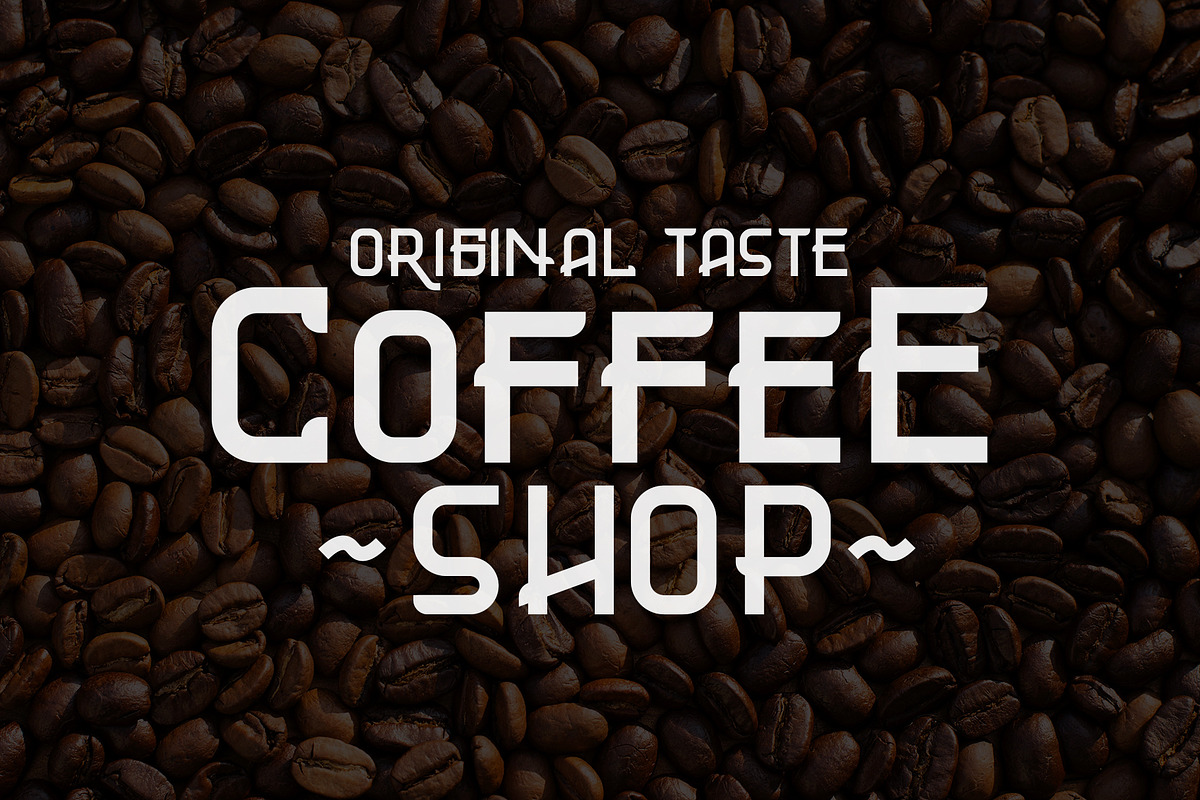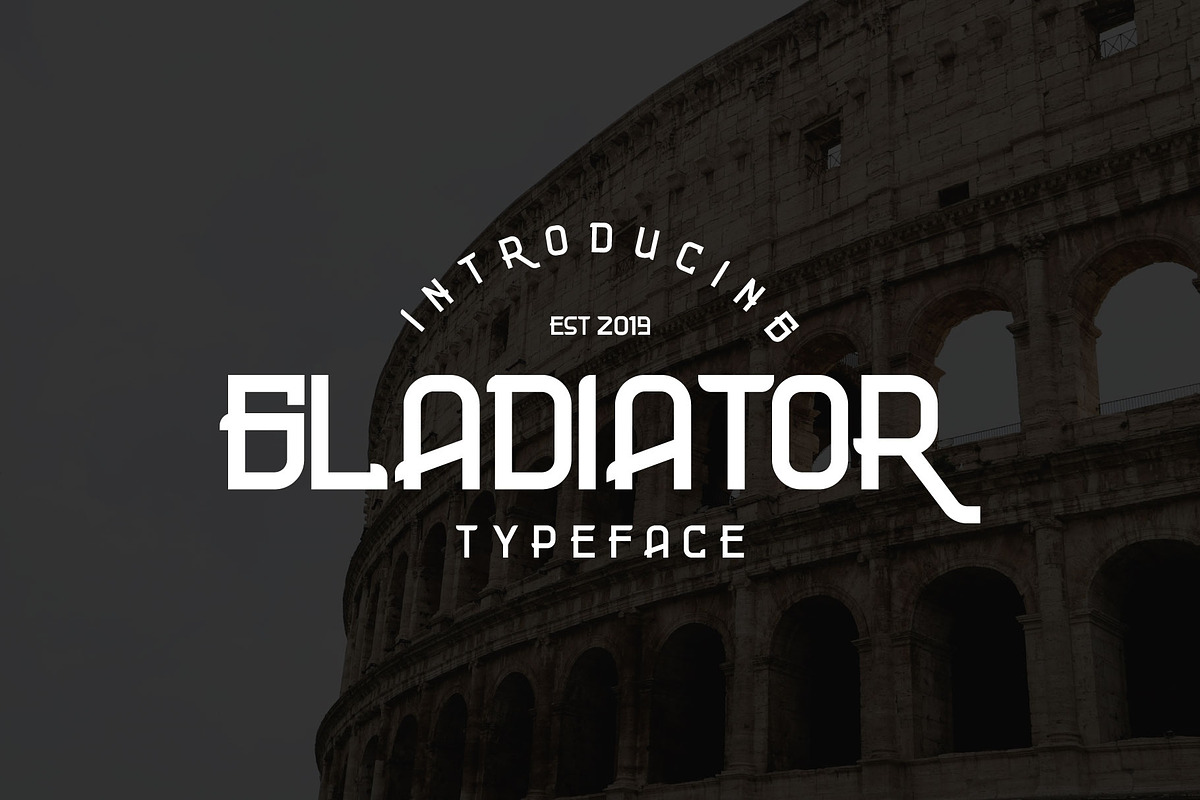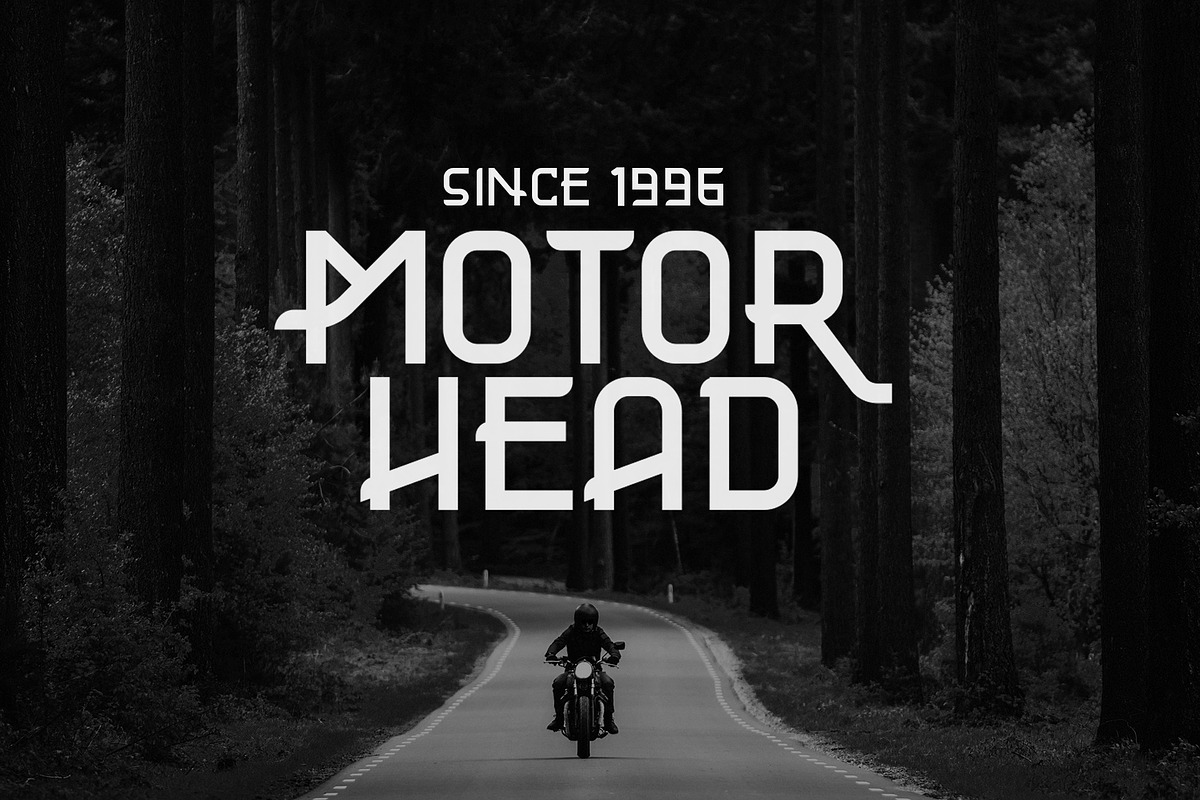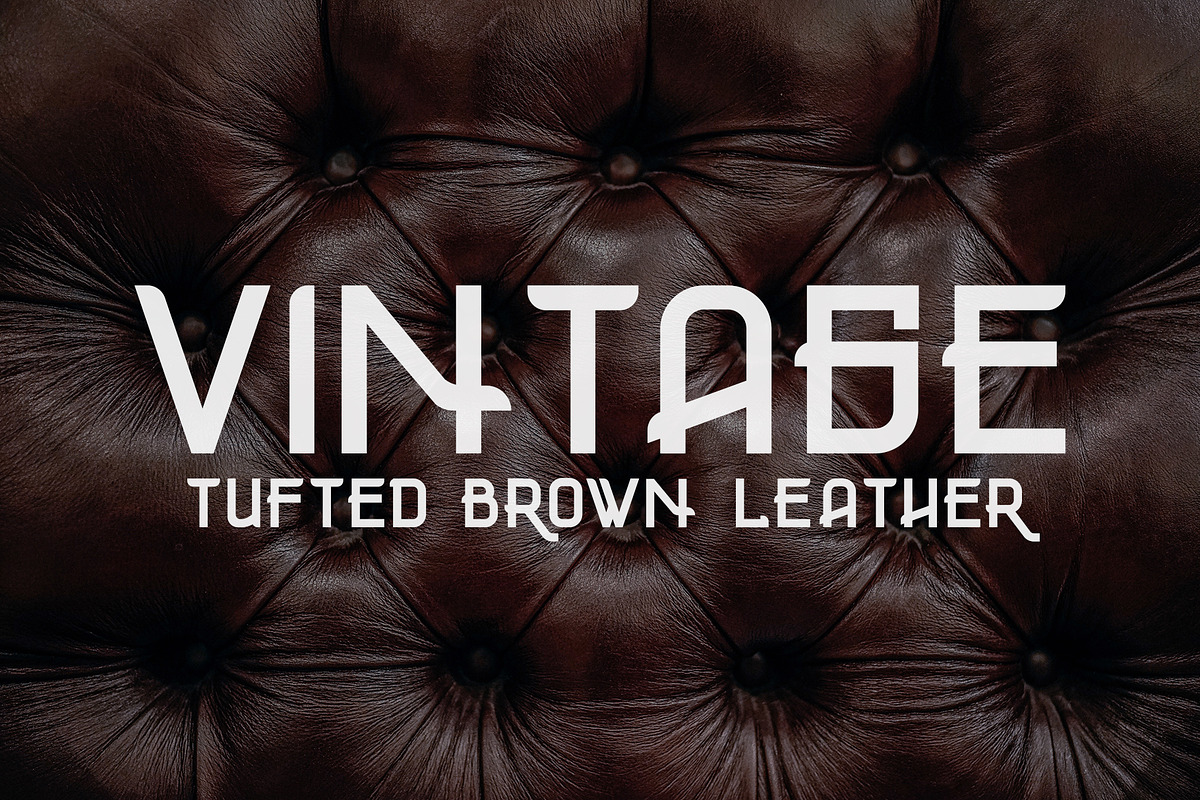
Gladiator Font Display
Proudly introducing the new font: Gladiator Font Display
Gladiator Font Display will be perfect for many different projects such as logos & branding, invitation, poster, flyer, wedding designs, social media posts, advertisements, product packaging, product designs, label, photography, watermark, special events or movie poster title just like what I did on the preview above.
Why Gladiator Font Display is worth a look
Gladiator Font Display by Guna Studio fits naturally into Branding, posters, packaging, typography.